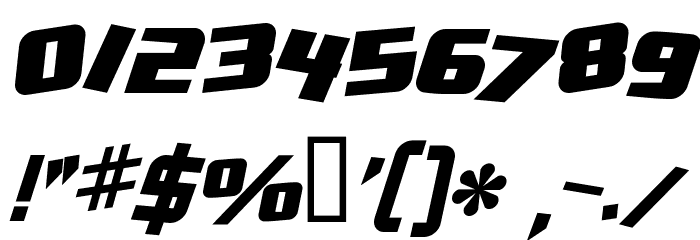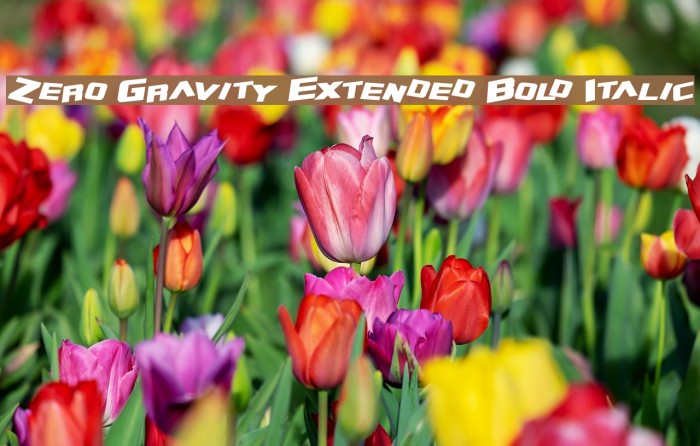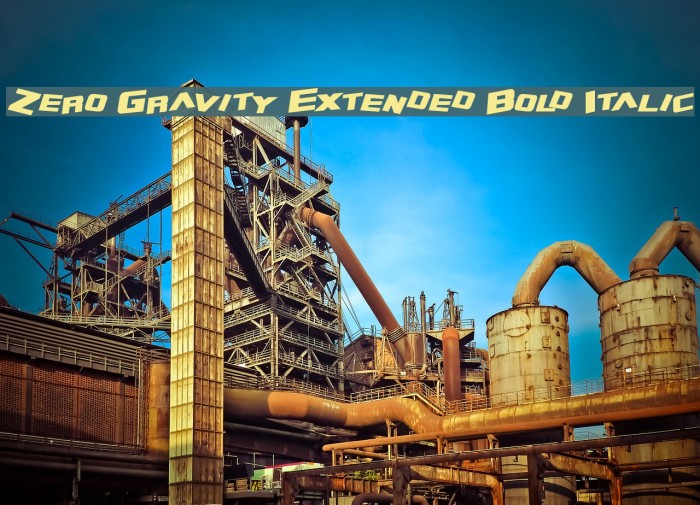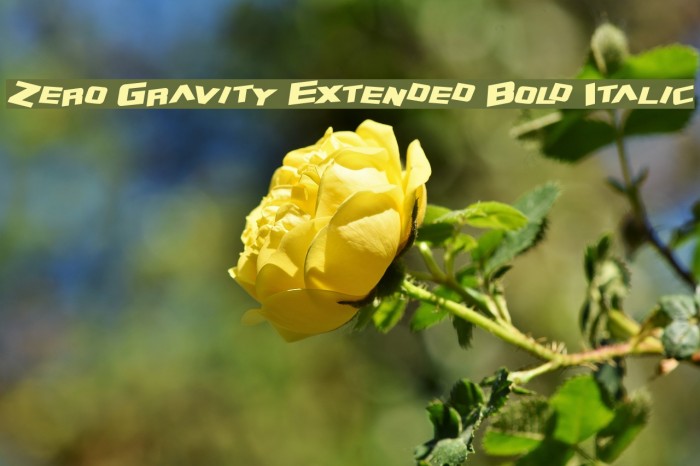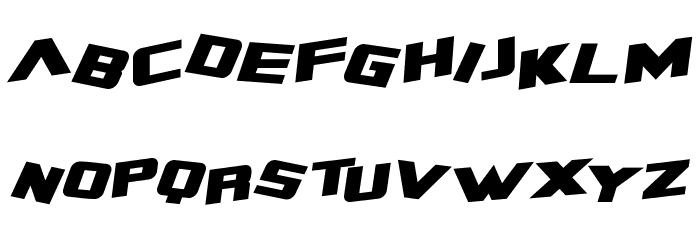
Zero Gravity Extended Bold Italic Font
Zero Gravity Extended Bold Italic Description
This font features a bold and dynamic style with an italic slant, giving it a sense of motion and energy. The characters are extended, providing a wide stance that enhances readability while maintaining a unique and modern aesthetic. The angular cuts and sharp edges contribute to its futuristic appearance, making it ideal for projects that require a strong visual impact. The numbers and special characters are consistent with the alphabet, maintaining the same boldness and slant, ensuring uniformity across all text elements.
A bold, extended, and italic font with a modern, dynamic style from Capitals fonts.
- Proposed Projects: Ideal for sports branding, futuristic designs, video game titles, and dynamic advertising materials.